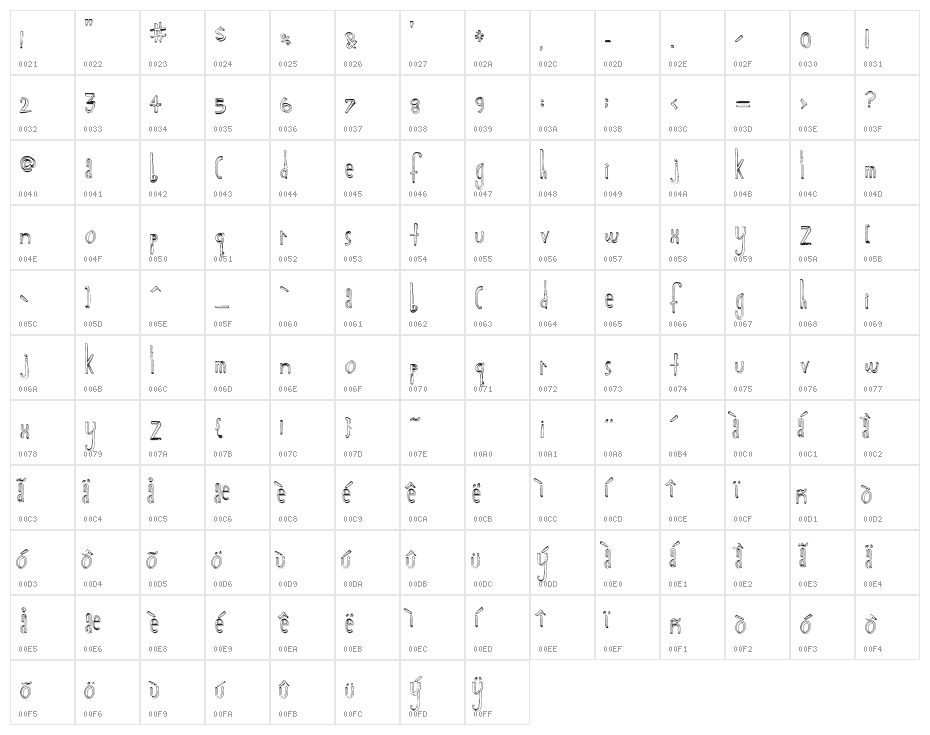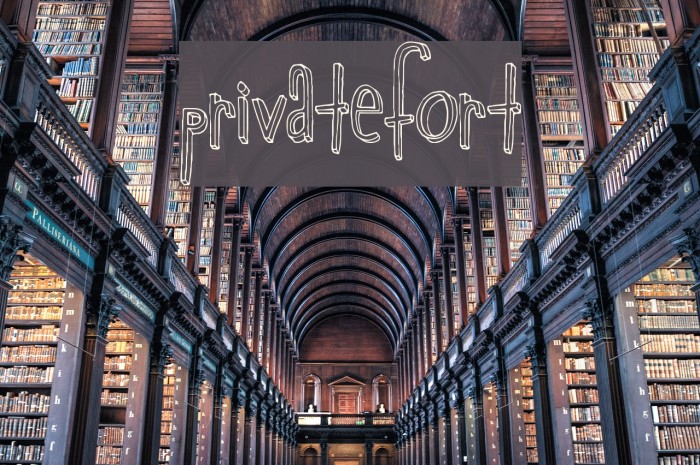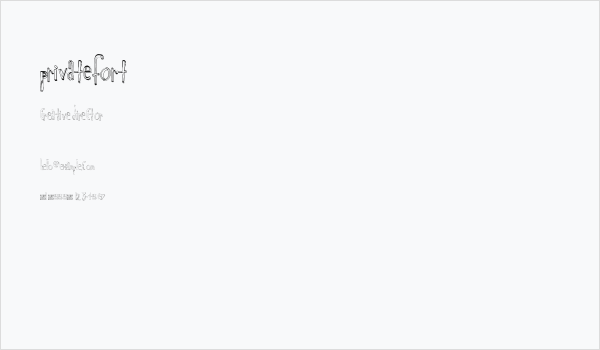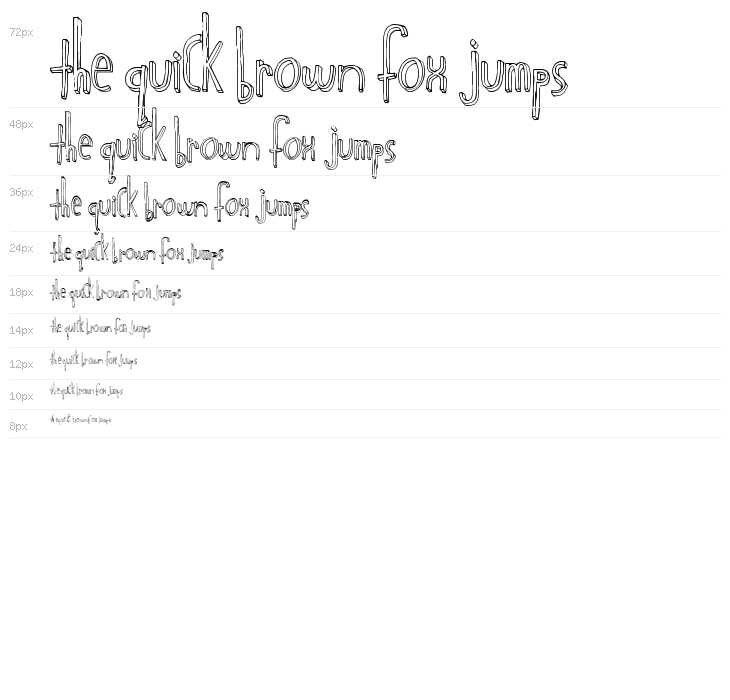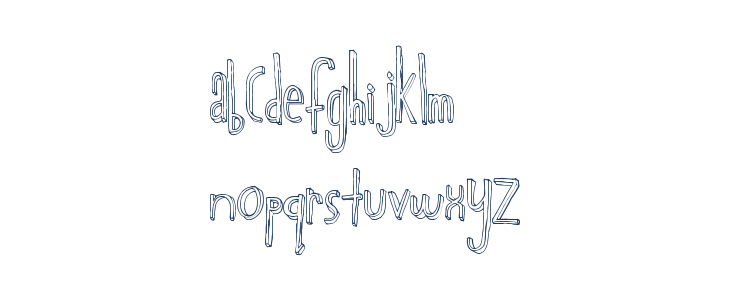
PrivateFort Font
PrivateFort Description
This font features a playful and whimsical design, characterized by its hand-drawn appearance and irregular line quality. Each character is outlined with a sketch-like effect, giving it a casual and artistic feel. The letters have a tall and narrow structure, with varying stroke widths that add to its unique charm. The font includes both uppercase and lowercase letters, numerals, and a selection of special characters. Its distinctive style makes it stand out, perfect for creative projects that require a touch of individuality and flair.
| Use Case | Logos, Posters, Creative projects |
| Proposed Projects | Ideal for children's books, greeting cards, playful branding, and artistic posters. |